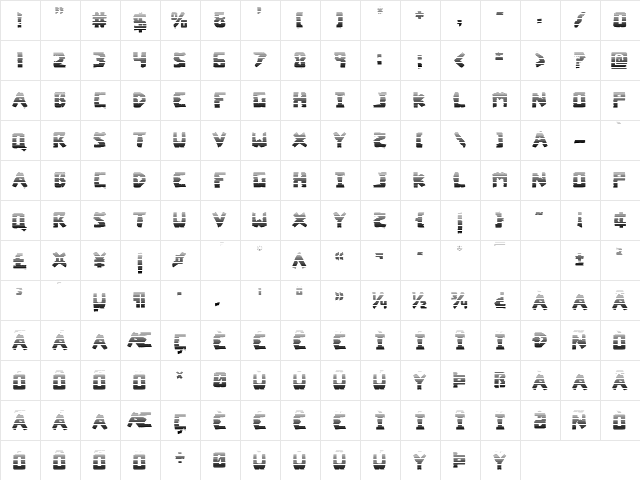
Coffin Stone Gradient Regular
Design Context for Coffin Stone Gradient Typeface
Coffin Stone Gradient is a composed and adaptable typeface that performs quietly and consistently across a wide range of design contexts.